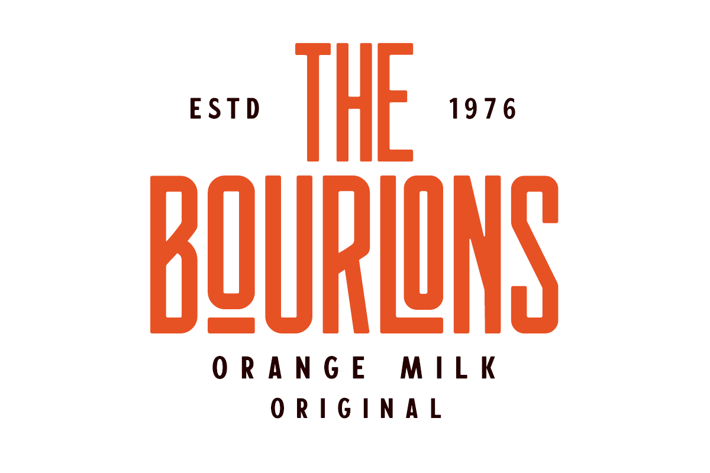
Chillvornia Condensed Font
CHILLVORNIA is a family sans serif font designed with carefully handcrafted. Also suitable for branding, T-shirt, Wedding Invitation, Classic Design, Logotype, and any project. With two style make you easier to design everythings.